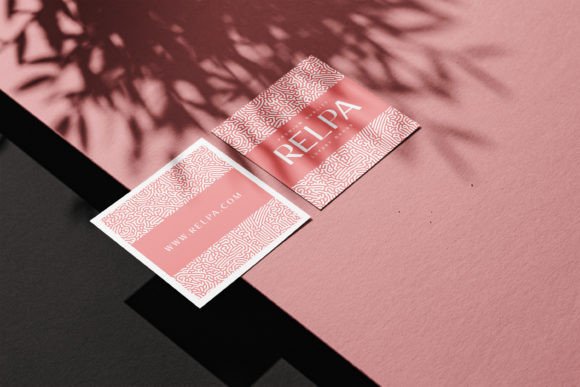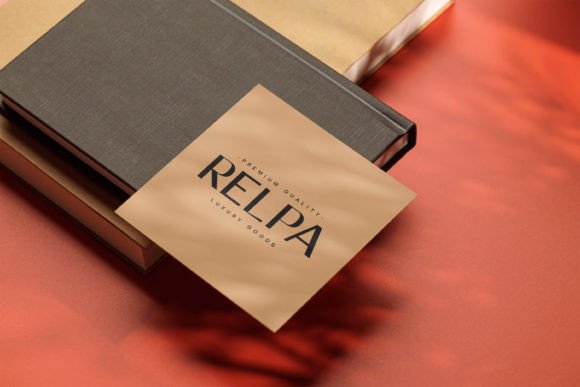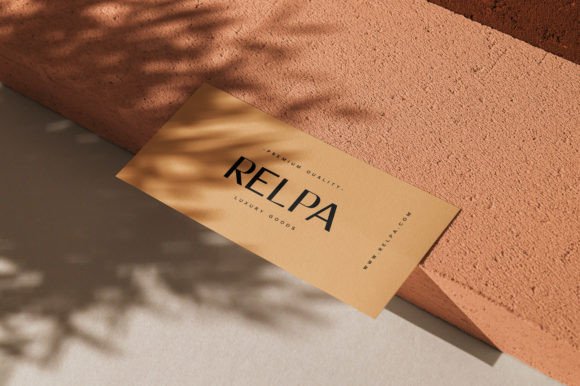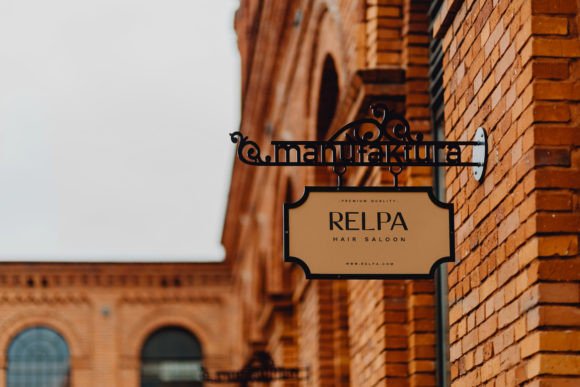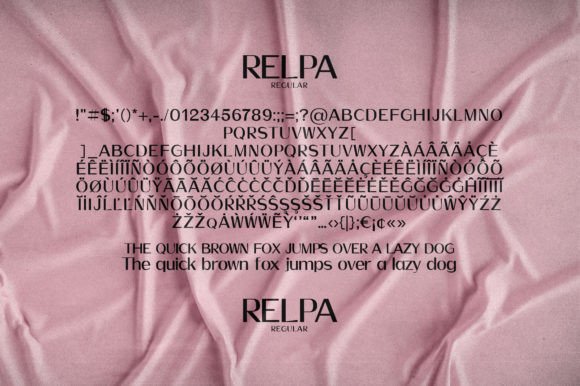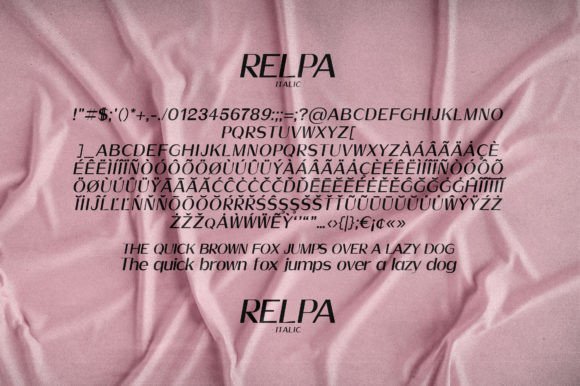
Introduction to Relpa Font Font
Fonts play a crucial role in design, and the Relpa Font font is a typeface that brings both character and versatility to any project. Whether you’re working on a branding project, a website, or a print design, the Relpa Font font offers a unique style that can elevate your work.
| 👤 Author | Minimalistartstudio |
Relpa is a chic, delicate and elegant sans serif typeface.
Its bold yet highly contrasted construction renders it a valid choice when it comes to creating various design themes such as packaging design, cosmetics, social posts, posters, flyers, and more Use it confidently in your creations and you will notice how many nice results can be easily obtained.
Key Features of Relpa Font Font
Why Choose Relpa Font Font?
The Relpa Font font is more than just a typeface – it’s a design tool that helps you communicate your message with style and clarity. Its unique character set and versatile design make it suitable for a wide range of applications, from elegant invitations to bold headlines.
With its carefully crafted letterforms and balanced proportions, the Relpa Font font ensures readability and visual appeal across all mediums.
What makes Relpa Font font special?
The Relpa Font font stands out with its unique design, exceptional readability, and versatility across various design applications.